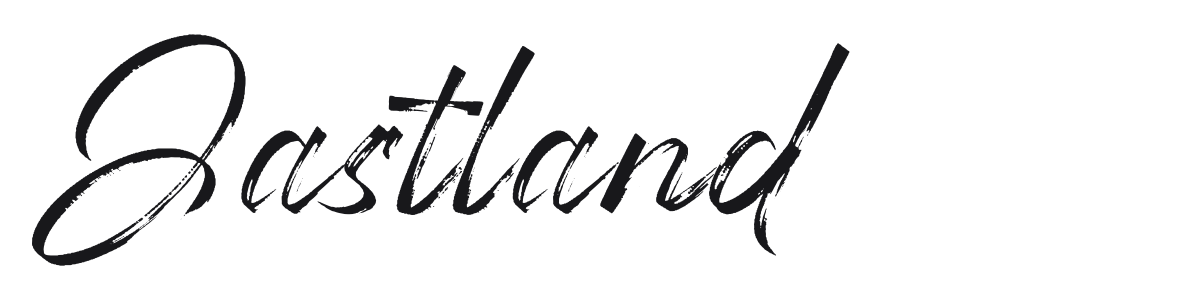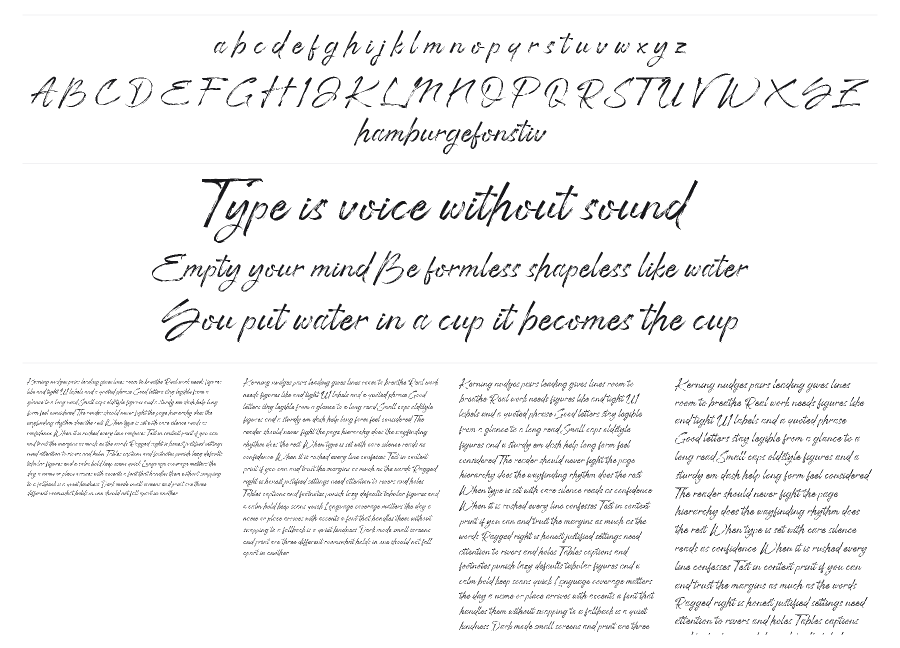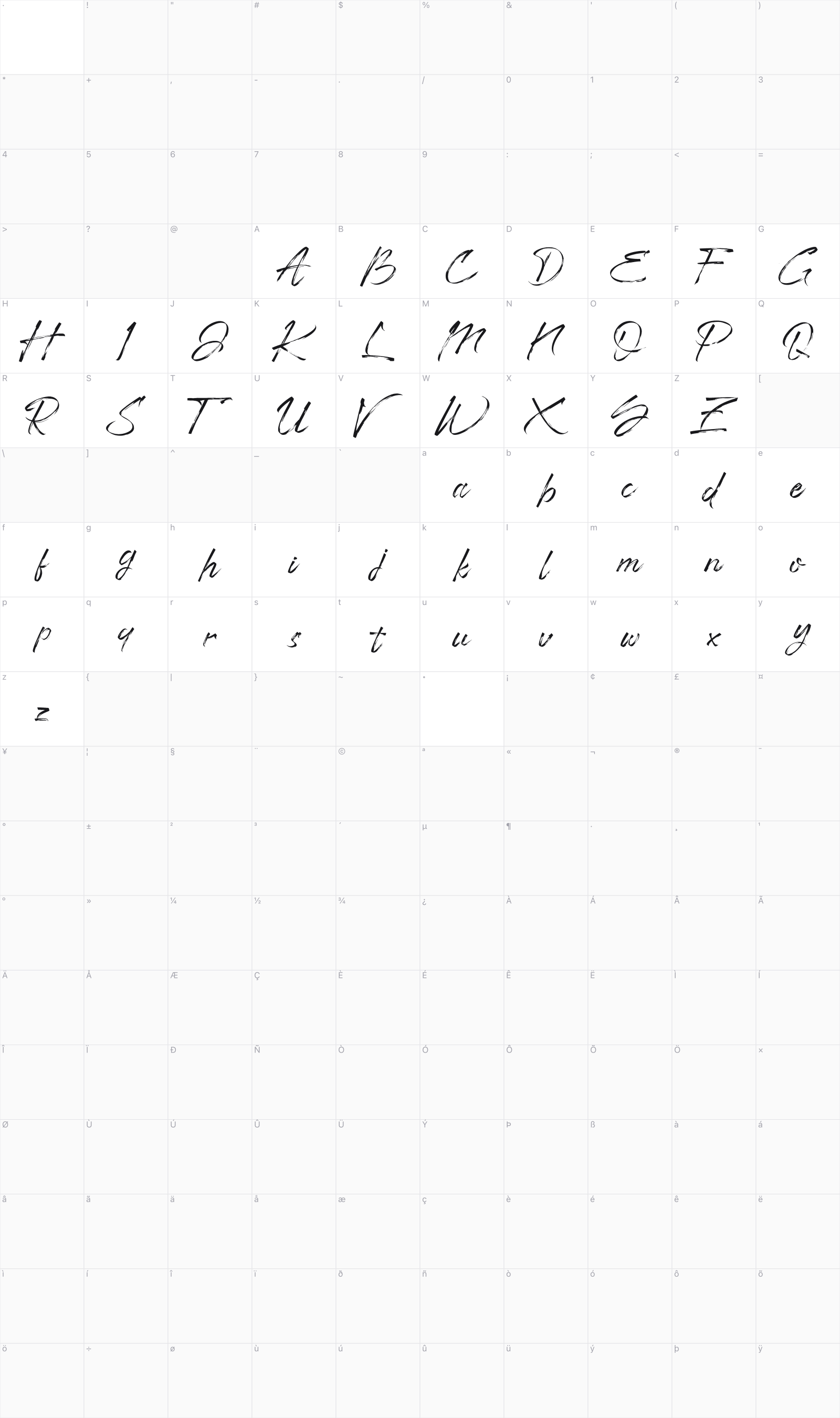
Jastland
Jastland is a grungy brush script from Madhaline Studio with heavy ink-break texture and sweeping calligraphic contrast. The dry-brush strokes give it an authentically raw, handmade quality that sits somewhere between editorial cool and underground edge. Strong at large sizes for logos, posters, and apparel graphics.